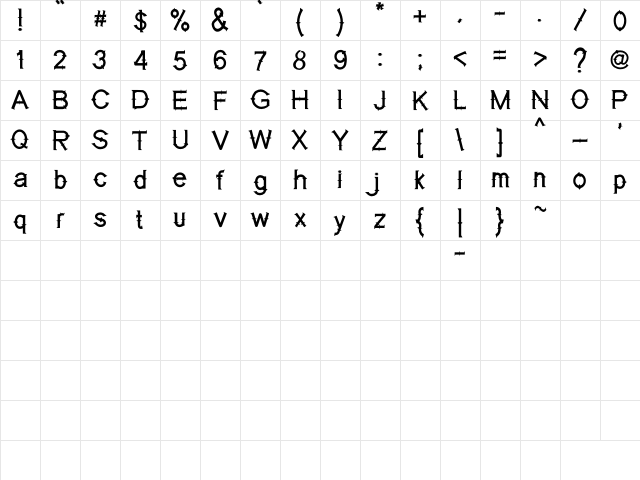
Labuhan Bajo Regular
Designer: Hindro cholis
Design Context for Labuhan Bajo
Labuhan Bajo is a composed and adaptable typeface that performs quietly and consistently across a wide range of design contexts.